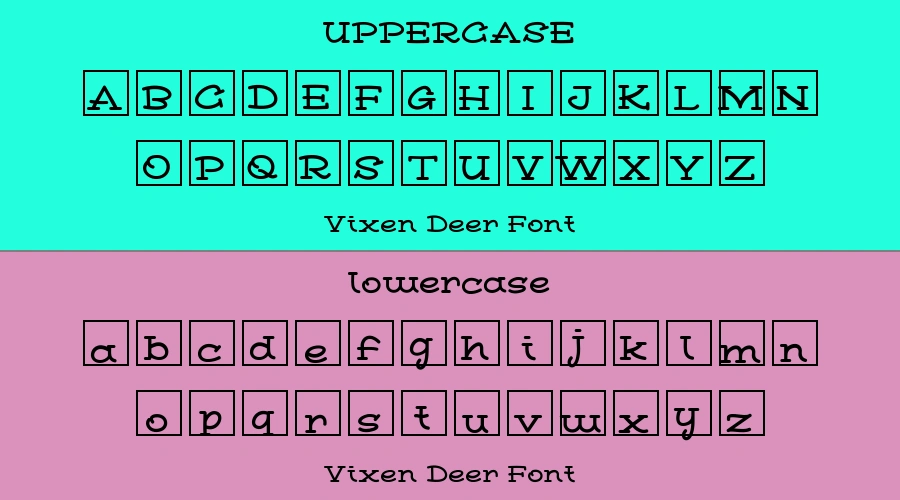
About Vixen Deer Font
Vixen Deer Font stands out for its distinctive combination of dramatic weight and operational efficiency. Ideal for logo design, it provides the longevity and aesthetic excellence that professional projects demand. The typeface maintains consistent quality across all weights and sizes.
Key features include refined graceful transitions and practical historical accuracy, enhancing typographic expression. In featured quotes applications, Vixen Deer Font demonstrates exceptional multi-language support. The ascender height and technical innovation contribute to its distinctive character and professional appeal.